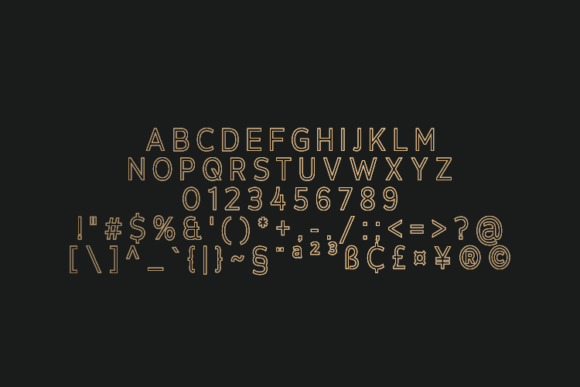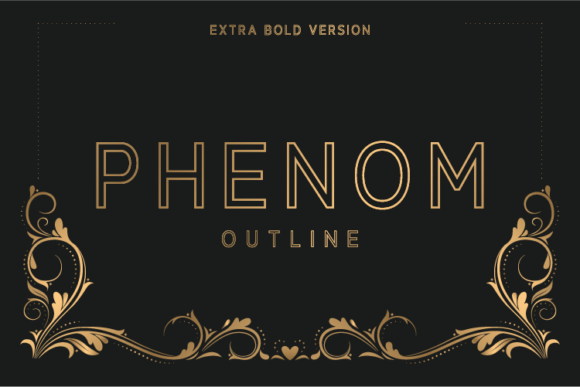
HomeSans Serif FontsPhenom Outline Extra Bold Font Sans Serif Fonts Phenom Outline Extra Bold Font FacebookXPinterestWhatsApp Phenom Outline Extra Bold Font 1 of 2 About Phenom Outline Extra Bold Font Phenom is a fancy, contemporary sans serif font. This amazing font includes a regular, and outline version It will complement any design need perfectly with its perfectly balanced mix of the smooth and sharp! DOWNLOAD ON CREATIVE FABRICAThis font is sold and delivered by Creative Fabrica. Font Canyon may earn a commission if you buy through this link. People also explored The Abems Font Where the Lonely Ones Roam Font Wickenburg Balnuettes Font Babycakes Font Farmhouse Font California Font Nevada Font Slender Font 359 0 TagsPhenom Outline Extra Bold Font Previous articlePhenom Outline Black FontNext articlePhenom Outline Bold Font LEAVE A REPLY Cancel reply Comment: Please enter your comment! Name:* Please enter your name here Email:* You have entered an incorrect email address! Please enter your email address here Website: Save my name, email, and website in this browser for the next time I comment. Personal Use Free Ancient Script Personal Use Free Read more about this font Earwig Factory Personal Use Free Read more about this font Unispace Personal Use Free Read more about this font Sushi Stroke Personal Use Free Read more about this font BLOG 5 Fonts That Will Dominate Design Trends in 2026 5 Fonts for 2026 That Will Dominate Design Trends Typography plays a critical role in visual communication, and as we look ahead to 2026, it’s... Top 7 Google Fonts Alternatives for Faster and Privacy-Friendly Web Design (2025) How to Cut Any Font on Cricut: Convert a Font to SVG (Free) Best Fonts for YouTube Videos: Make Your Thumbnails Stand Out